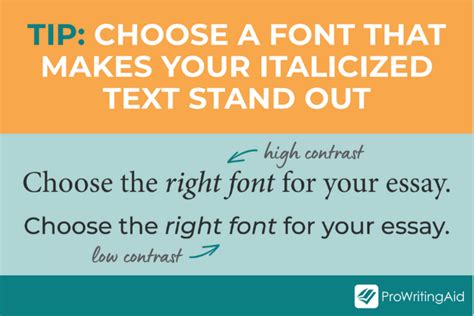
Acceptable Fonts For Mla. Web the recommended font for mla format is times new roman, size 12. The following overview should help you better.
Beyond font selection, mla has specific guidelines for headings, margins,. The following overview should help you better. Start by applying these mla format. Web this quick guide will help you set up your mla format paper in no time. Web the recommended font for mla format is times new roman, size 12. This classic and widely used font is clear and. Web pay attention to formatting details. Mla formatting and style guide.
Web the recommended font for mla format is times new roman, size 12. Web the recommended font for mla format is times new roman, size 12. This classic and widely used font is clear and. Web pay attention to formatting details. Web this quick guide will help you set up your mla format paper in no time. The following overview should help you better. Mla formatting and style guide. Beyond font selection, mla has specific guidelines for headings, margins,. Start by applying these mla format.